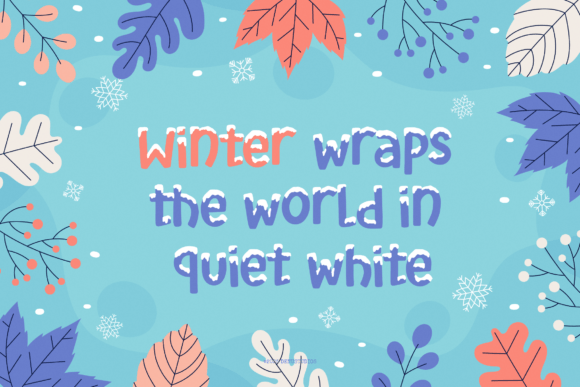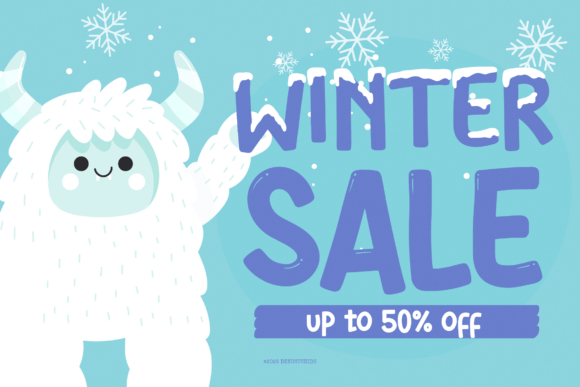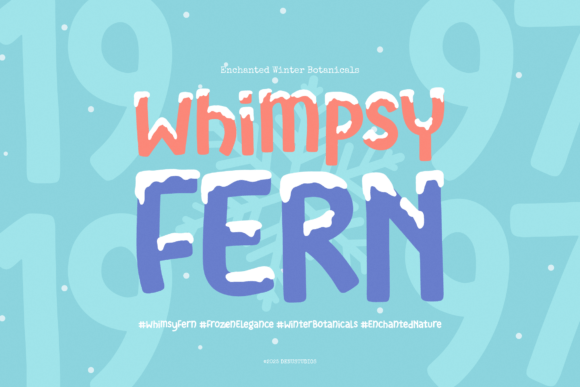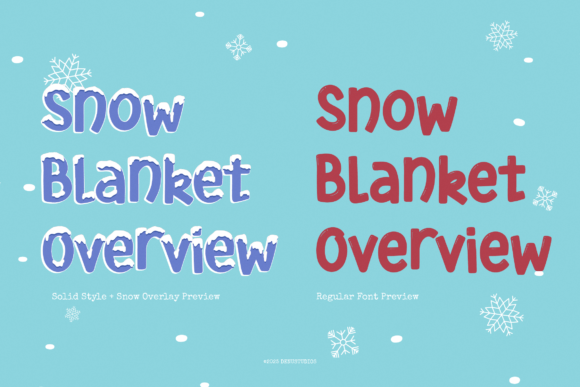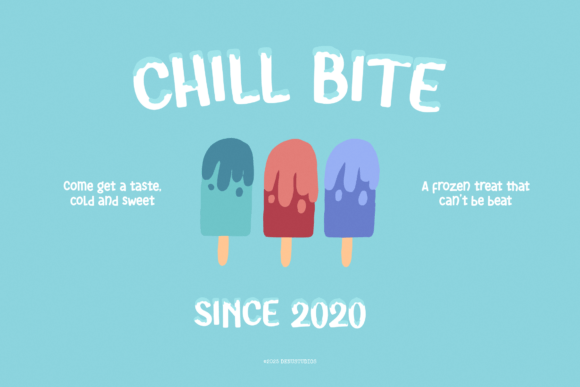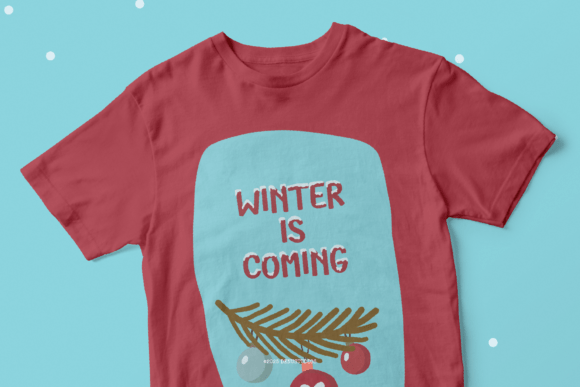
Introducing Frozen Caps Font: Add a Touch of Winter Wonderland to Your Designs
Are you looking for a font that captures the magic of winter and adds a playful touch to your designs? Look no further than Frozen Caps Font! This fun and festive display font is perfect for winter-themed projects, holiday cards, Christmas branding, and playful seasonal graphics. With its charming snow-covered design, Frozen Caps is sure to bring a smile to your audience’s faces and make your content stand out.
What Makes Frozen Caps Font So Special?
Frozen Caps Font is more than just a pretty font – it’s a design element that can elevate your winter-themed creations to the next level. Here are some of its key features:
- Charming Snow-Covered Design: Frozen Caps features a delightful snow-covered design that adds a whimsical touch to your text. The font’s snowflakes and frosty details create a festive atmosphere that’s perfect for winter-themed projects.
- Two Styles to Choose From: Frozen Caps comes in two styles, allowing you to mix and match to create a unique look that suits your design needs.
- Cute Snow Overlay: The font includes a cute snow overlay that can be used to add an extra layer of festivity to your designs.
- Ligatures and Multilingual Characters: Frozen Caps supports ligatures and multilingual characters, making it a versatile choice for designers who work with international clients or want to create content in multiple languages.
Perfect for Winter-Themed Projects
Frozen Caps Font is ideal for a wide range of winter-themed projects, including:
- Holiday Cards: Add a personal touch to your holiday cards with Frozen Caps’ festive design.
- Christmas Branding: Create a cohesive brand identity for your holiday promotions with Frozen Caps’ charming snow-covered design.
- Playful Seasonal Graphics: Use Frozen Caps to create eye-catching graphics for your winter-themed blog posts, social media updates, or email newsletters.
Tips for Using Frozen Caps Font
Here are some tips for getting the most out of Frozen Caps Font:
- Experiment with Different Sizes: Frozen Caps looks great in large sizes, but it can also be used in smaller sizes to add a subtle touch of festivity to your designs.
- Pair with Other Winter-Themed Elements: Combine Frozen Caps with other winter-themed elements, such as snowflakes or holly, to create a cohesive design.
- Use the Snow Overlay Wisely: Use the snow overlay to add an extra layer of festivity to your designs, but be careful not to overdo it – sometimes less is more!
Key Features at a Glance
| Font Style | Display Font |
| Design Elements | Snow-covered design, snowflakes, frosty details |
| Number of Styles | 2 |
| Ligatures | Supported |
| Multilingual Characters | Supported |